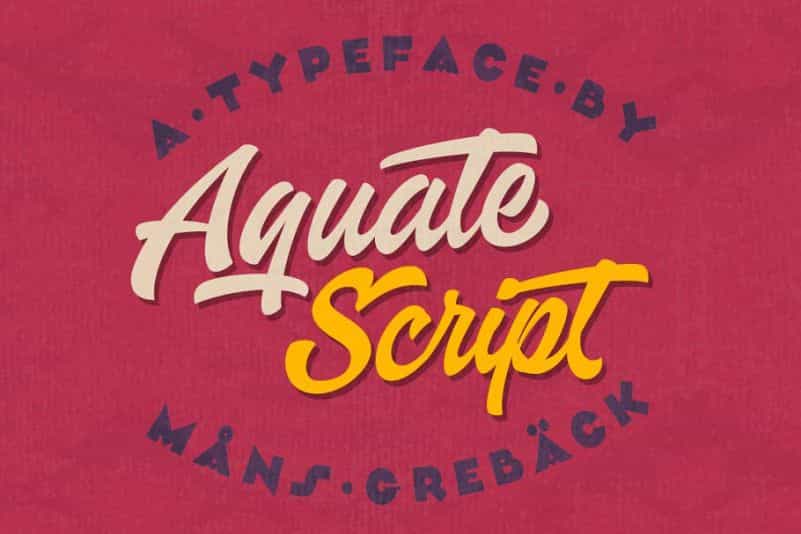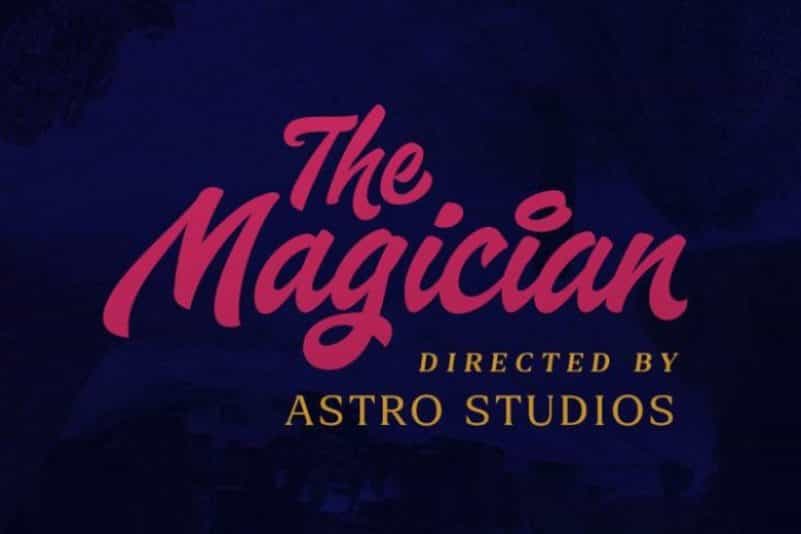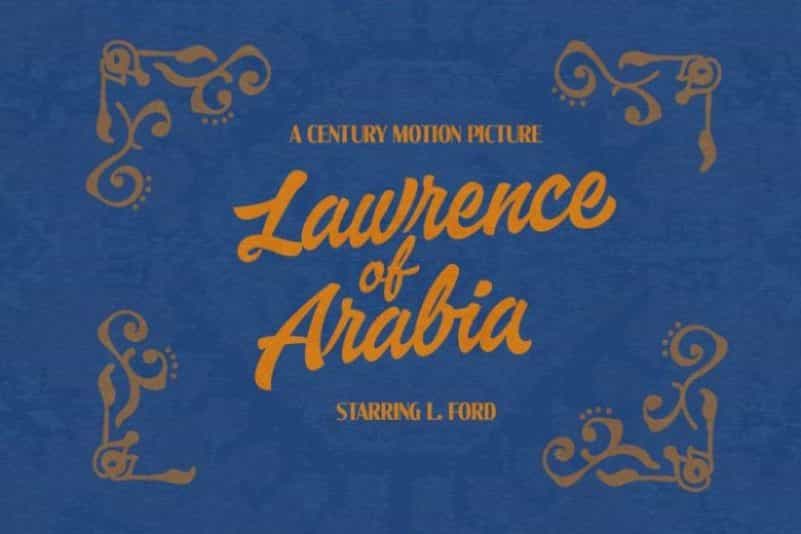
Aquate Script is a brush typeface which is professional in its nature. It shows a rather dynamic yet assertive line-progression, in which wide sweeps are set against jagged edges. This is because it has multiple alternate alphabets; it is highly versatile and really makes a logo or headline look like it was painted by hand.